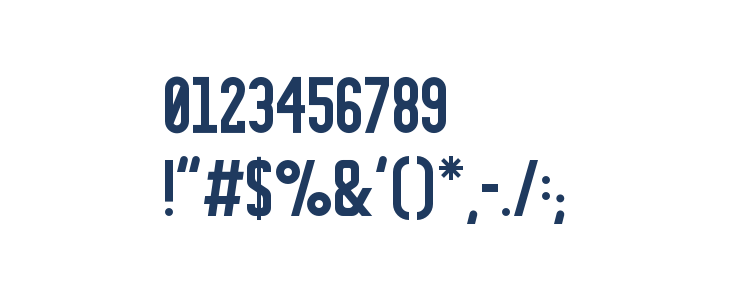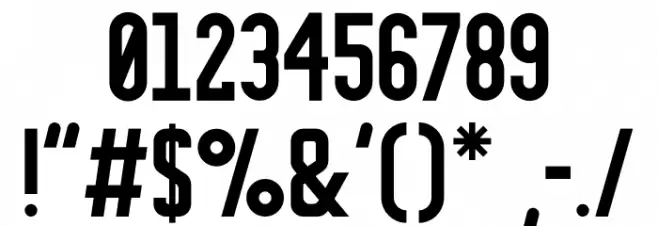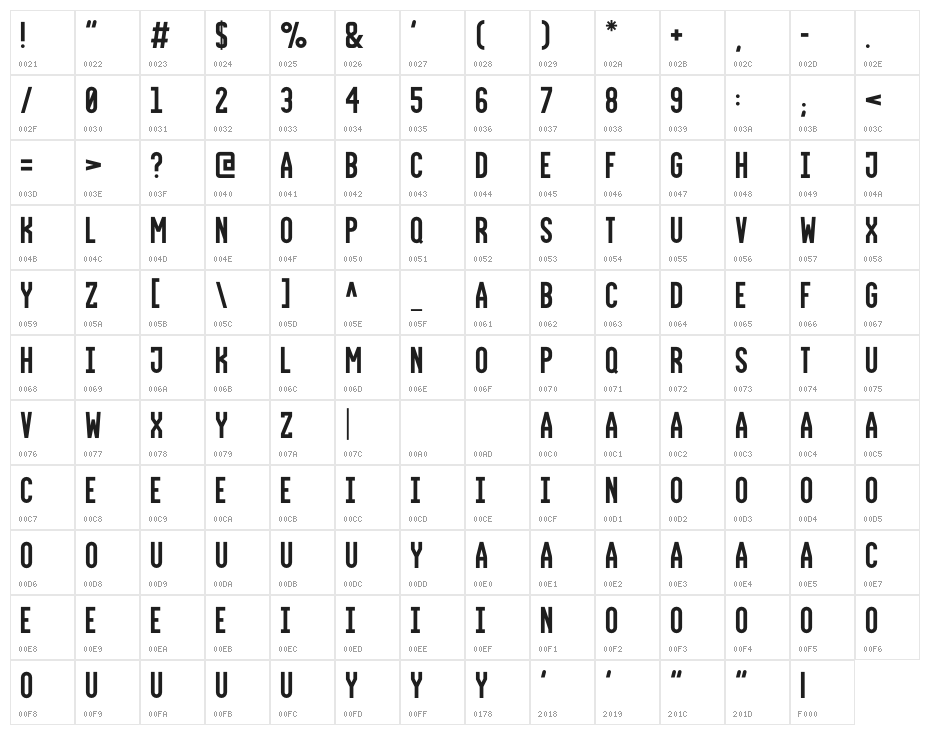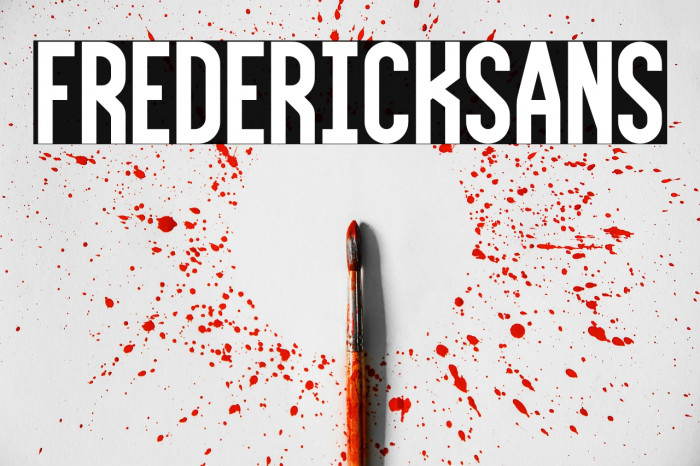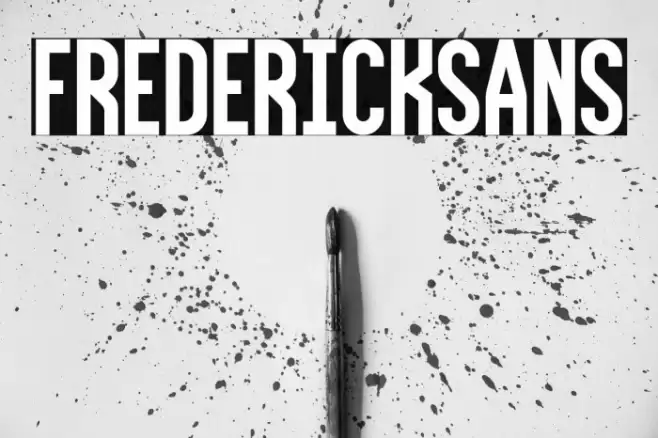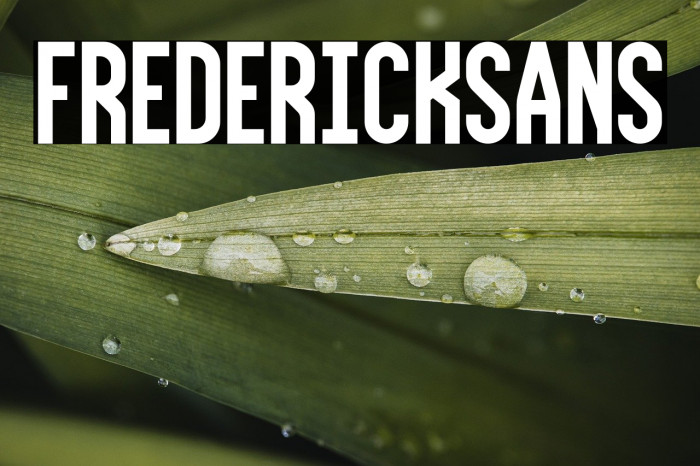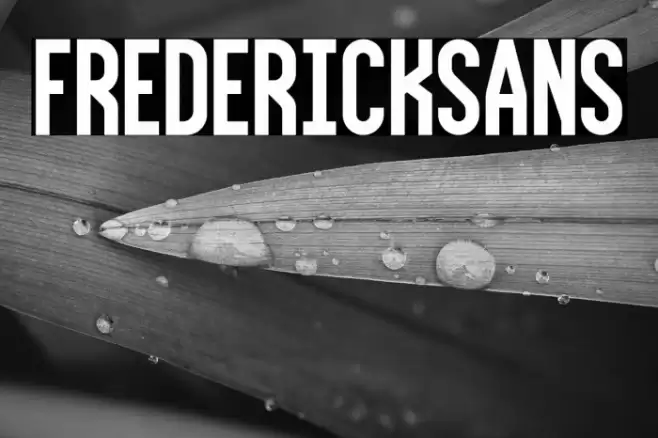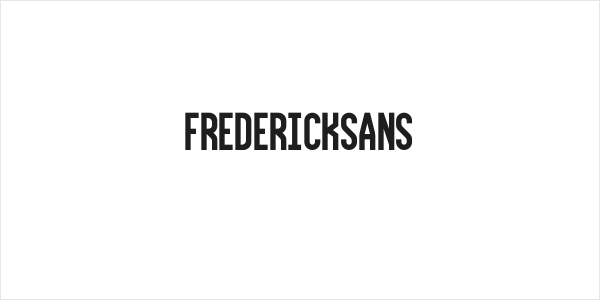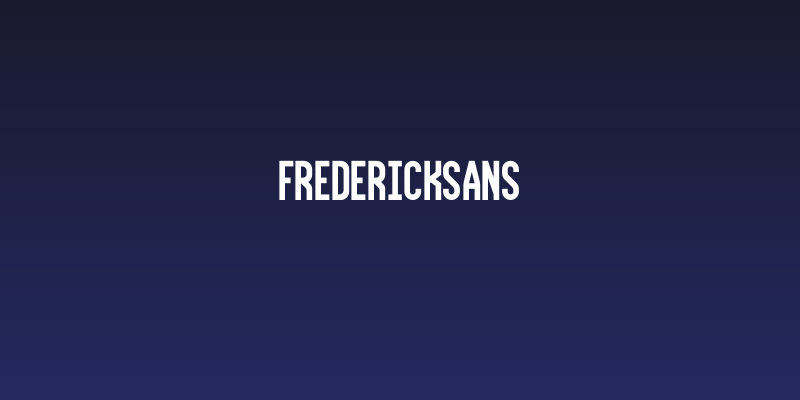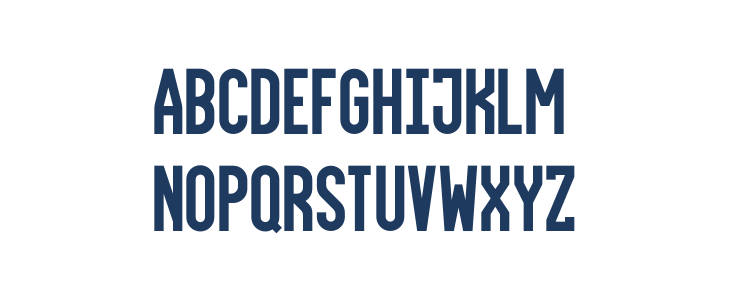
FrederickSans Description
This font features a bold and modern sans-serif style with a strong geometric structure. The characters are tall and narrow, giving it a condensed appearance. The uppercase letters are uniform in height, while the lowercase letters maintain a consistent baseline, enhancing readability. The numbers are clear and distinct, matching the overall boldness of the letters. Special characters are well-defined, maintaining the font's cohesive look. The clean lines and lack of serifs contribute to a contemporary and professional aesthetic, making it versatile for various design applications.
| Proposed Projects | Ideal for headlines, posters, branding, and advertising where a strong, modern impact is desired. |